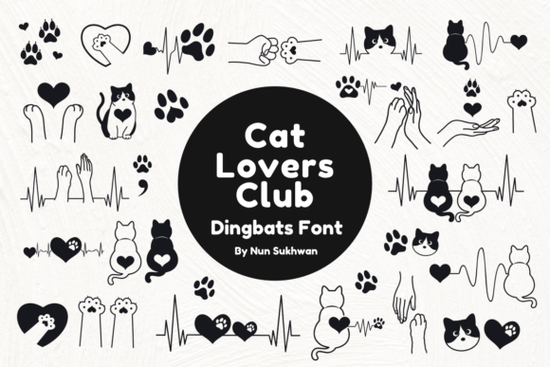
If you work with cats in any visual way designing logos for pet shops, making stickers, or building a brand around our feline friends the Cat Lovers Club Font is worth a closer look. It's not a traditional typeface. Instead, it's a dingbats font packed with cat-themed icons you can type out like regular letters. Think paw prints, kitty silhouettes, heart-tail shapes, and more. You can find Cat Lovers Club on Creative Fabrica, where it's ready to download and use right away.
What Exactly Is a Dingbats Font?
A dingbats font doesn't give you letters or numbers. Instead, each key on your keyboard maps to a symbol or icon. When you type "A," you might get a paw print. Type "B," and a cat silhouette appears. This makes it incredibly easy to drop icons into any design software no need to hunt through clipart folders or import separate SVG files.
The Cat Lovers Club dingbats collection focuses entirely on feline-inspired graphics. The set includes a wide variety of icons:
- Paw prints in different styles and sizes
- Heart-tail silhouettes cats curled into heart shapes
- Fist-bump paws for a fun, modern vibe
- Kitty-pulse line art that works well for subtle accents
- Cat face icons with different expressions
Who Is This Font For?
This is a practical tool for anyone creating cat-related content. Here are a few people who'd get real use out of it:
- Print-on-demand sellers designing cat lover t-shirts, mugs, and tote bags
- Pet boutique owners making price tags, stickers, or shopping bags
- Veterinary clinics needing clean, friendly icons for signs and brochures
- Social media managers creating Instagram posts or story highlights for cat brands
- Crafters working on scrapbooking pages, greeting cards, or party invitations
- Bloggers and content creators in the pet niche who want consistent, cute visuals
How Do You Actually Use It?
Here are a few practical ways to put it to work:
- Apparel patterns: Type out a repeating row of paw prints to fill a background on a t-shirt design.
- Social media graphics: Use a single cat silhouette as a watermark or accent on Instagram stories.
- Sticker sheets: Combine different icons on one canvas to create a themed sticker set for Etsy or your own shop.
- Business materials: Add small paw icons next to phone numbers or addresses on vet clinic flyers.
- Greeting cards: Layer heart-tail shapes with text for Valentine's cards for cat lovers.
Because it's a font and not a set of image files, the icons stay sharp at any size. They scale cleanly for both small print (like business cards) and large format (like posters or banners).
Does It Work Well With Other Fonts?
Absolutely. Dingbats fonts like this one are meant to pair with regular typefaces. Use your favorite serif or sans-serif font for headings and body text, then sprinkle in Cat Lovers Club icons as decorative elements. The icons have a playful, modern style, so they complement clean, simple fonts especially well.
Since the icons are vector-based through the font system, you can recolor them easily. Make them pink, black, grey, or any color that fits your project's palette.
Quick Checklist Before You Buy
Before downloading, run through this short list to make sure it's the right fit:
- ✅ You create cat-themed designs for personal or commercial use
- ✅ You want icons you can resize without losing quality
- ✅ You need a consistent visual style across multiple projects